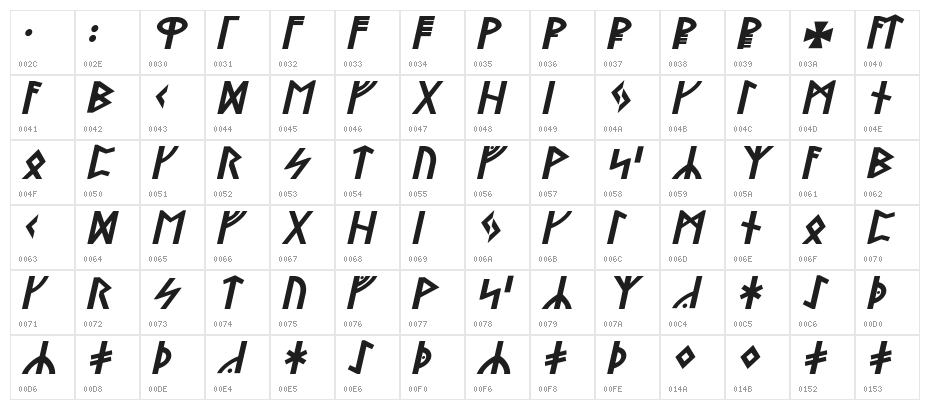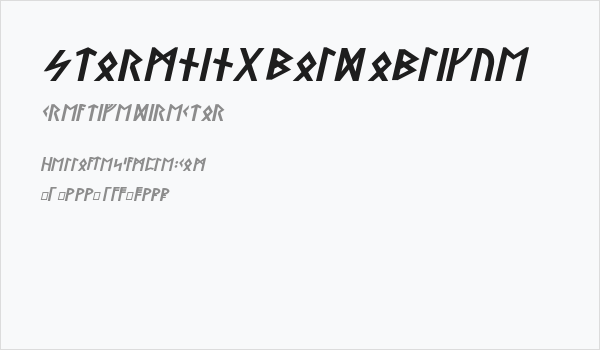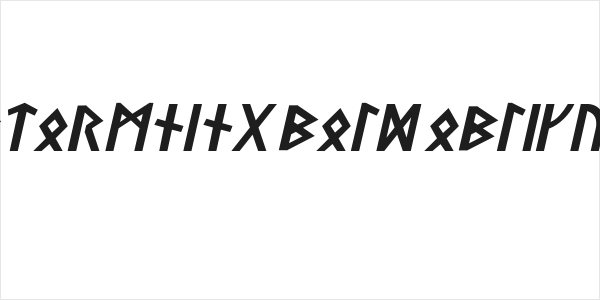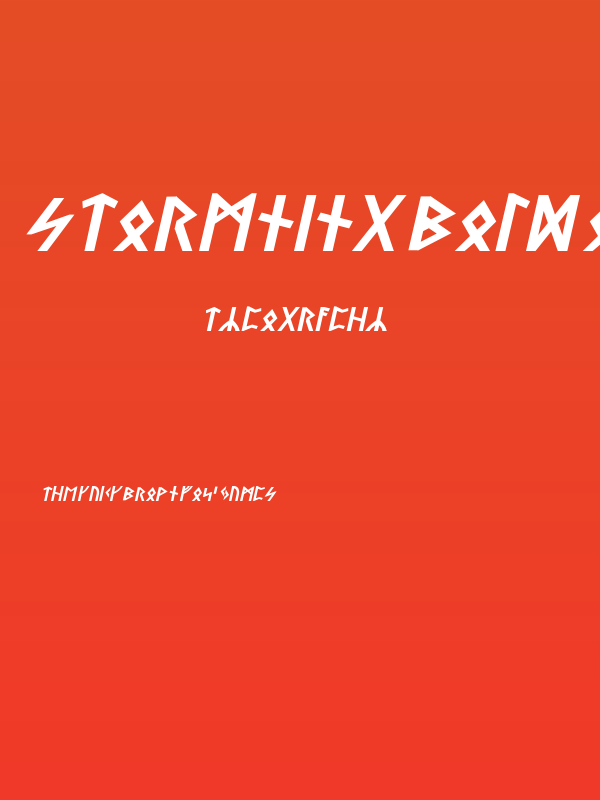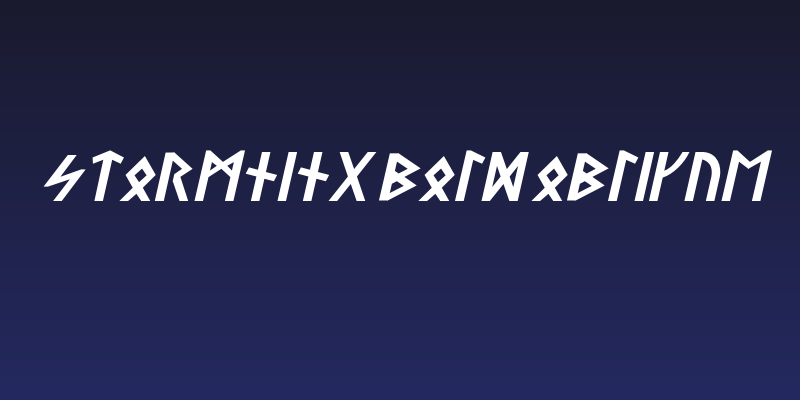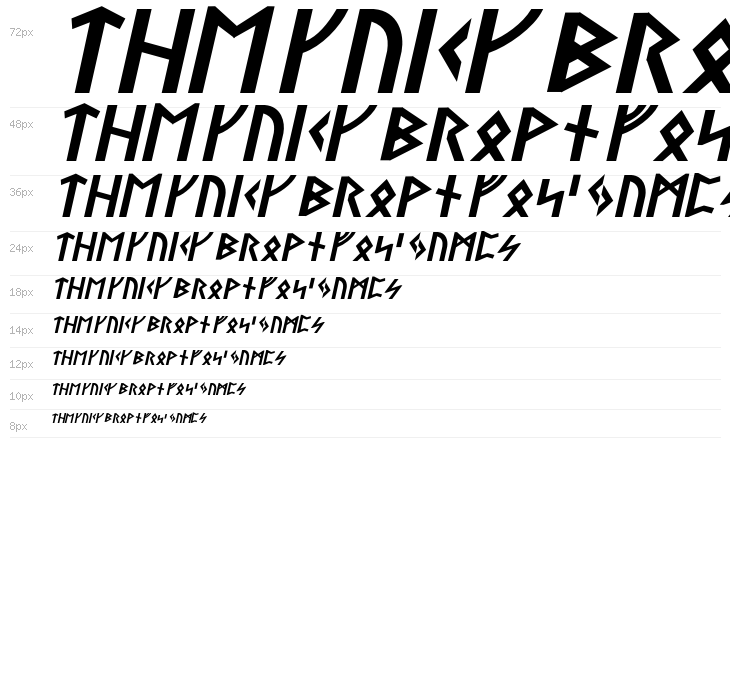
Stormning Bold Oblique Font
Stormning Bold Oblique Description
This font features a bold and dynamic style with sharp, angular lines and a distinct oblique slant. The characters exhibit a futuristic and edgy appearance, reminiscent of sci-fi or cyberpunk aesthetics. The uppercase letters are particularly striking, with unique geometric shapes and a sense of movement. The lowercase letters maintain the same angular design, ensuring consistency across the typeface. Numbers and special characters are equally bold and stylized, adding to the overall cohesive look. This font's strong visual impact makes it suitable for attention-grabbing designs.
| Proposed Projects | Ideal for sci-fi book covers, video game titles, movie posters, and branding for tech companies. |